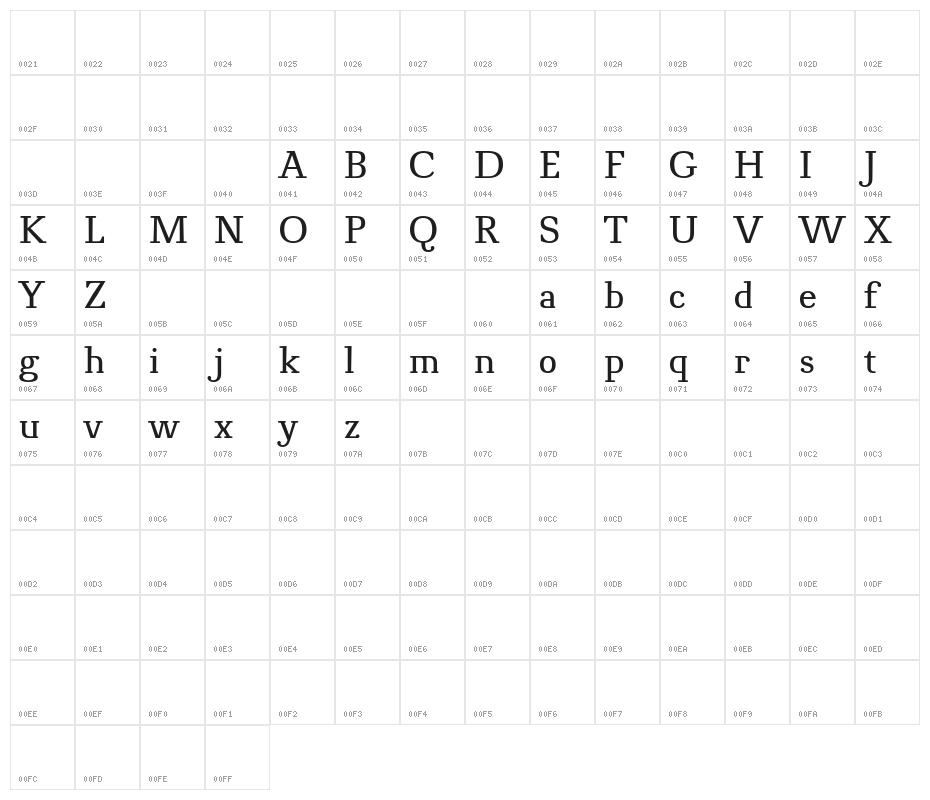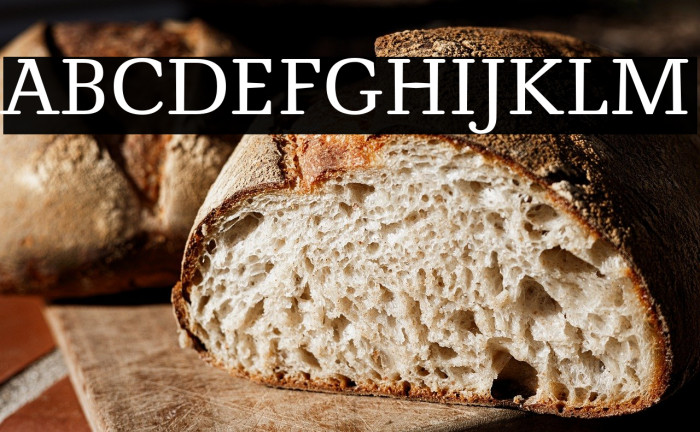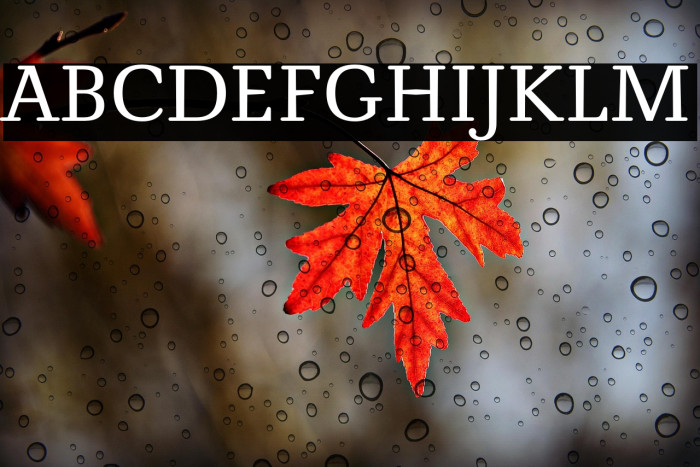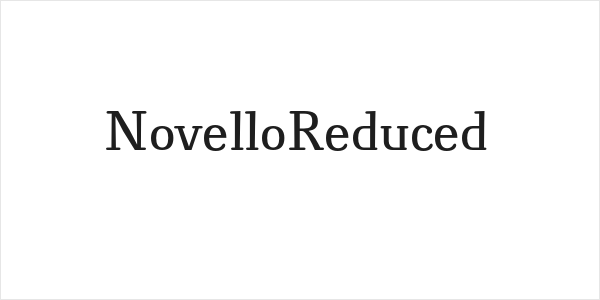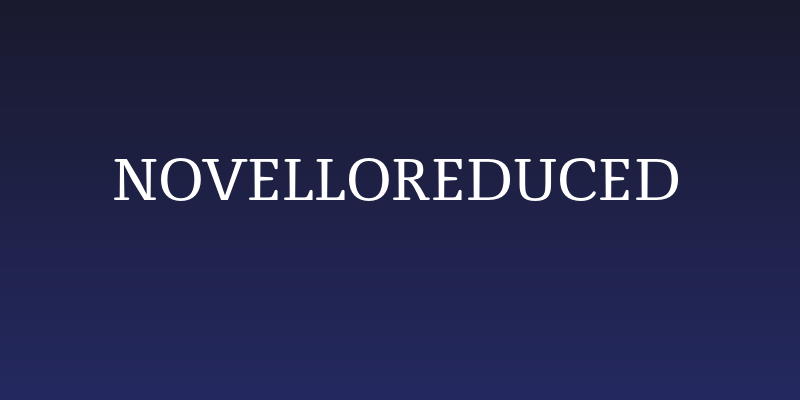
NovelloReduced Font
NovelloReduced Description
This font features a classic serif design with elegant and refined strokes. The characters exhibit a balanced proportion, with slightly elongated serifs that add a touch of sophistication. The uppercase letters are bold and commanding, while the lowercase letters maintain a harmonious flow. The font's structure is traditional, yet it carries a modern sensibility, making it versatile for various applications. The numerals are clear and distinct, ensuring readability. Special characters are well-integrated, maintaining the overall aesthetic of the font.
| Proposed Projects | Ideal for editorial design, book covers, formal invitations, and branding projects that require a touch of elegance. |